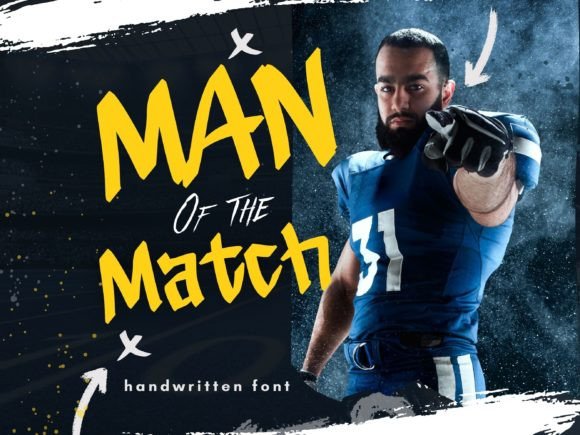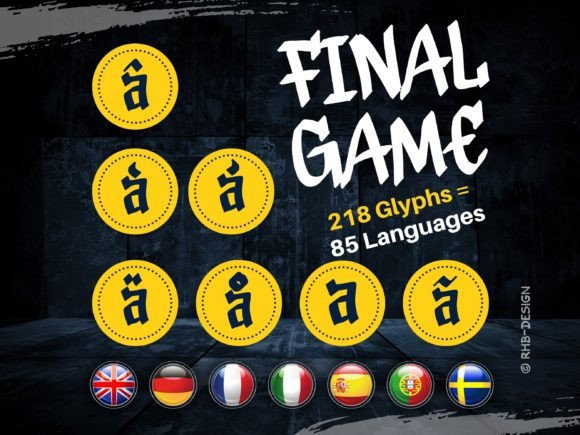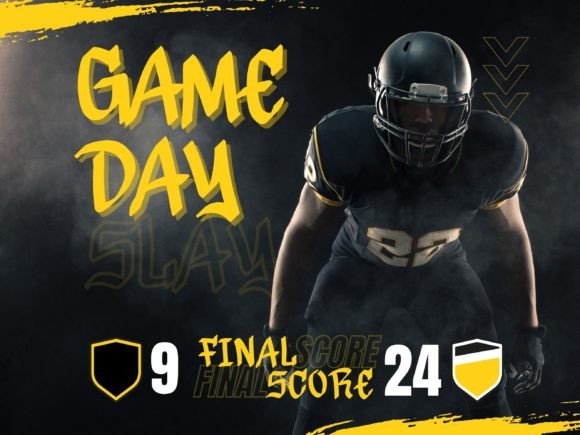
Introduction to Rhb Final Game Font
RHB Final Game is a playful and modern font crafted by hand.
Perfect for headlines and logos, RHB Final Game secures smooth compatibility with various design tools Thanks to its playful personality, this font lends itself exceptionally well to creative projects.